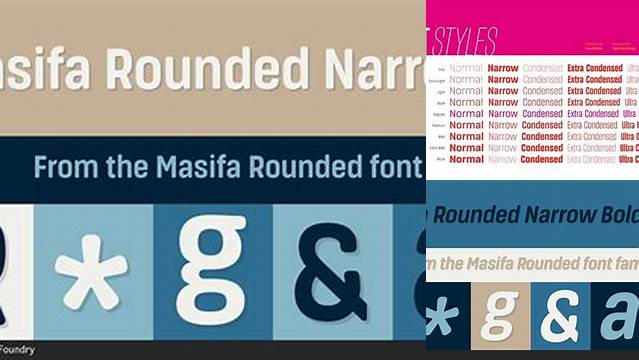
Masifa Font: Free Download Rounded Bold Style
Hey guys! Are you on the hunt for a unique and bold font to spice up your design projects? Look no further! In this article, we're diving deep into the world of Masifa Rounded Narrow Bold, a font that's been making waves in the design community. We'll cover everything from what makes this font so special to where you can download it for free and how to best use it in your projects. So, buckle up and let's get started!
1. What is Masifa Rounded Narrow Bold?
Masifa Rounded Narrow Bold is a font that falls into the category of sans-serif typefaces, but it's anything but ordinary. Its defining characteristics are its rounded edges and narrow, bold strokes. This combination gives it a friendly yet authoritative feel, making it a versatile choice for a wide range of applications. Imagine a logo that's both approachable and confident, or a website headline that grabs attention without being overwhelming – that's the magic of Masifa. The font's clarity and legibility also make it suitable for body text, especially in digital formats. When you're looking for a font that balances playfulness with professionalism, Masifa Rounded Narrow Bold is definitely one to consider. Think of it as the friendly giant of fonts – bold and strong, but with a soft touch. You can use Masifa Rounded Narrow Bold for a multitude of designs.
2. Key Features of Masifa Rounded Narrow Bold
The key features of Masifa Rounded Narrow Bold are what set it apart and make it a valuable addition to any designer's toolkit. First and foremost, its rounded terminals give it a softer, more approachable feel compared to fonts with sharp, angular edges. This makes it particularly well-suited for designs that aim to convey friendliness and warmth. The narrow width of the letters contributes to a sense of modernity and sophistication, allowing you to pack more text into a given space without sacrificing legibility. The bold weight adds emphasis and impact, ensuring that your message stands out. Another notable feature is its clean and minimalist design, which makes it highly versatile and adaptable to various design styles. Whether you're working on a website, a poster, or a branding project, Masifa Rounded Narrow Bold offers a blend of style and functionality that's hard to beat. Remember, the right font can make or break a design, and with Masifa, you're in good hands.
3. Applications of Masifa Rounded Narrow Bold
Masifa Rounded Narrow Bold's versatility shines through in its wide range of applications. Its bold and friendly aesthetic makes it perfect for branding materials, where you want to convey a sense of approachability and confidence. Think logos, business cards, and website headers. In the digital realm, it excels in user interfaces (UI) and user experience (UX) design, where readability and visual appeal are paramount. Its clean lines and rounded edges make it easy on the eyes, even at smaller sizes. In print, it's an excellent choice for posters, flyers, and brochures, where you need a font that grabs attention without being overwhelming. It's also a great option for headlines and subheadings in magazines and newspapers. Beyond commercial uses, Masifa Rounded Narrow Bold can add a touch of personality to personal projects like invitations, greeting cards, and social media graphics. Basically, if you need a font that's both stylish and functional, Masifa has you covered. Imagine the possibilities!
30. The Future of Masifa Rounded Narrow Bold and Similar Fonts
So, what does the future hold for Masifa Rounded Narrow Bold and similar fonts? Well, guys, the future of typography is looking pretty bright! With the continued emphasis on user-friendly design and visual communication, fonts like Masifa, which blend boldness with approachability, are likely to remain popular for years to come. The trend towards rounded sans-serif fonts, in general, shows no signs of slowing down. These fonts offer a contemporary and friendly aesthetic that resonates with a wide audience. As websites and apps become increasingly focused on creating a positive user experience, fonts that are easy on the eyes and convey a sense of warmth will continue to be in demand. Variable font technology is another factor that could influence the future of fonts like Masifa. Variable fonts allow designers to customize various aspects of a font, such as weight, width, and slant, creating a wide range of styles from a single font file. This could lead to even more variations of Masifa Rounded Narrow Bold and similar fonts, offering greater flexibility and control for designers. The increasing use of typography in motion graphics and animation could also impact the future of font design. Fonts that work well in motion, with clear and dynamic letterforms, are likely to become more popular. Ultimately, the future of fonts like Masifa Rounded Narrow Bold depends on the evolving needs of designers and the ever-changing landscape of visual communication. But with its blend of style, readability, and approachability, Masifa is well-positioned to remain a relevant and valuable tool for designers for years to come. The future is bright for Masifa and similar fonts.